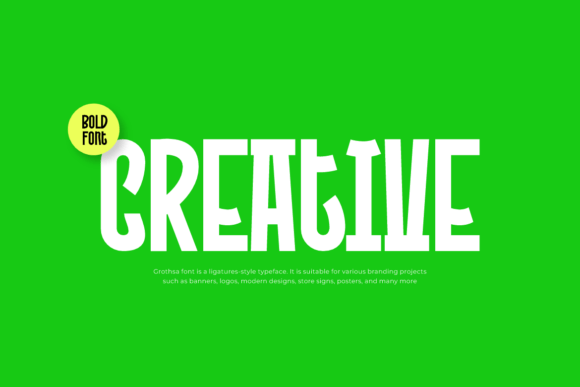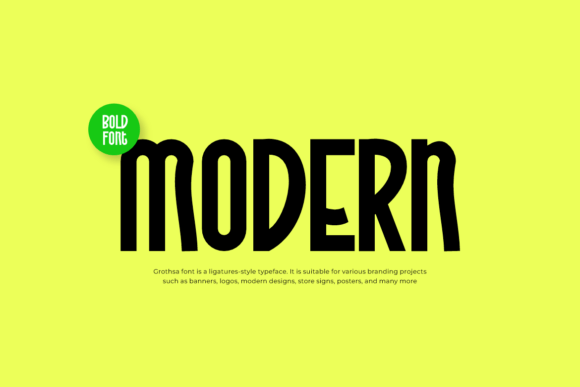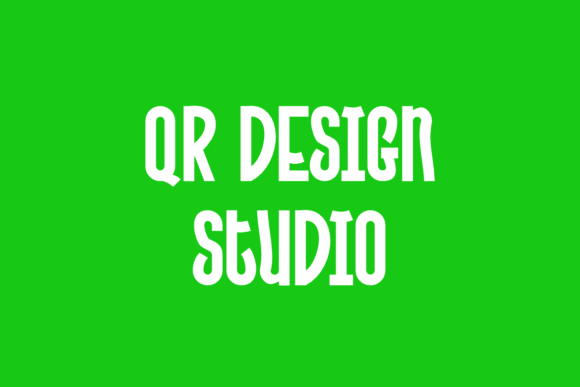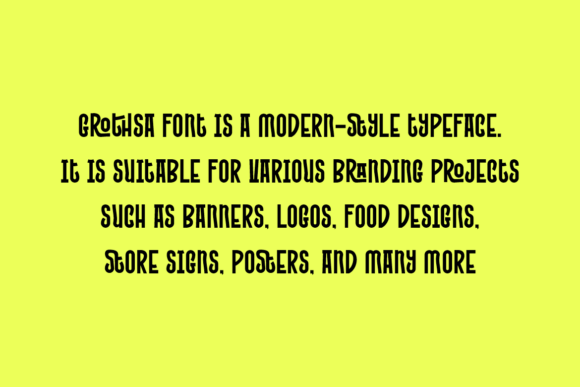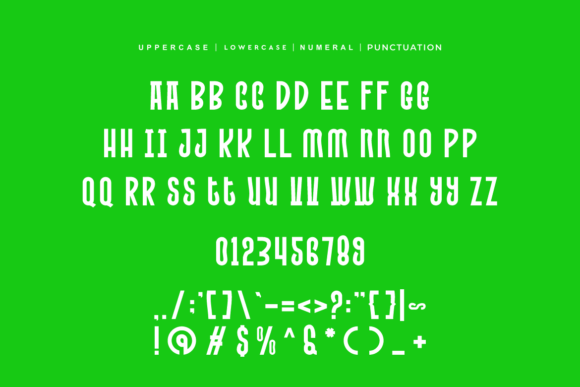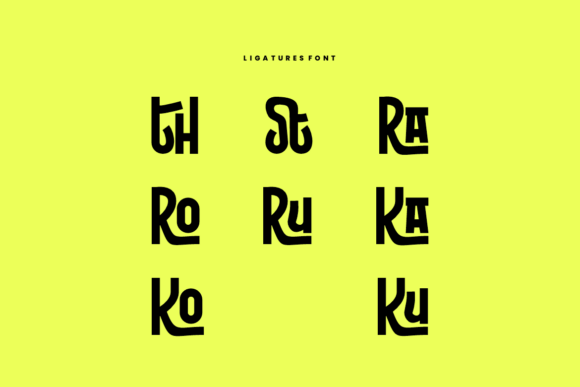
Introduction to Grothsa Font
Grothsa Font is a bold and authentic display typeface.
It’s perfect for various branding projects such as logos, sports designs, and more This font stands out beautifully in a wide range of contexts.
Key Features of Grothsa Font
Why Choose Grothsa Font?
Grothsa Font offers exceptional quality and versatility, making it a valuable addition to your design toolkit. Whether you’re creating for personal projects or commercial use, Grothsa Font delivers professional results.